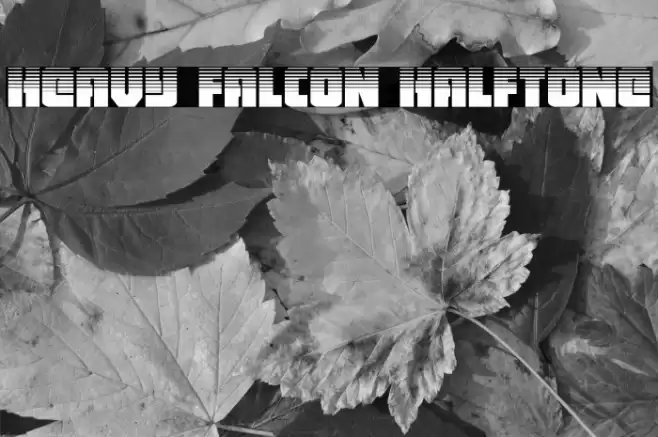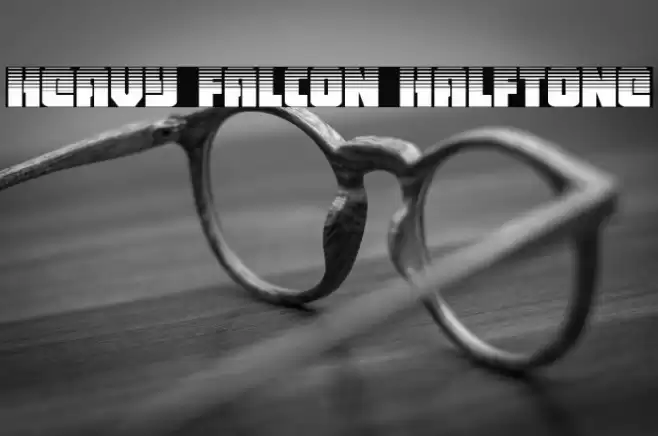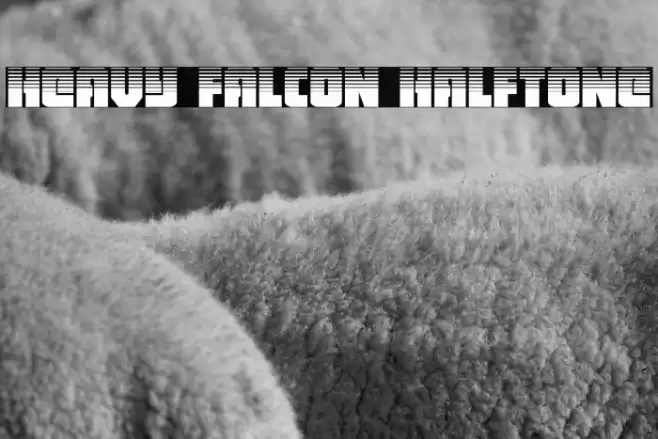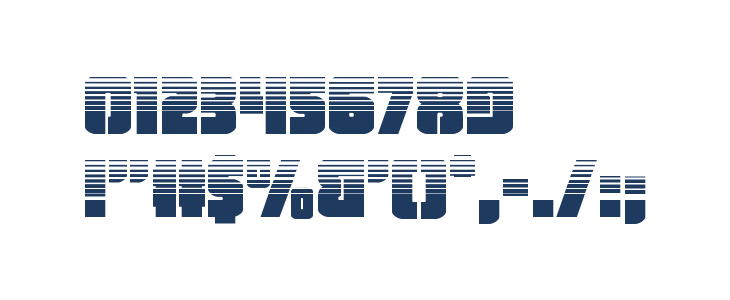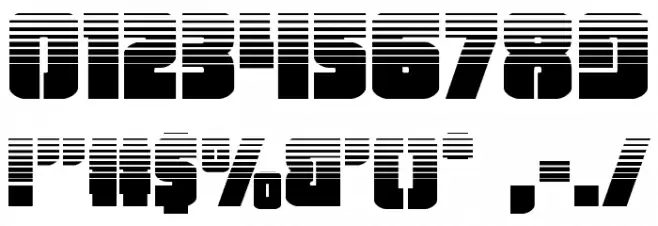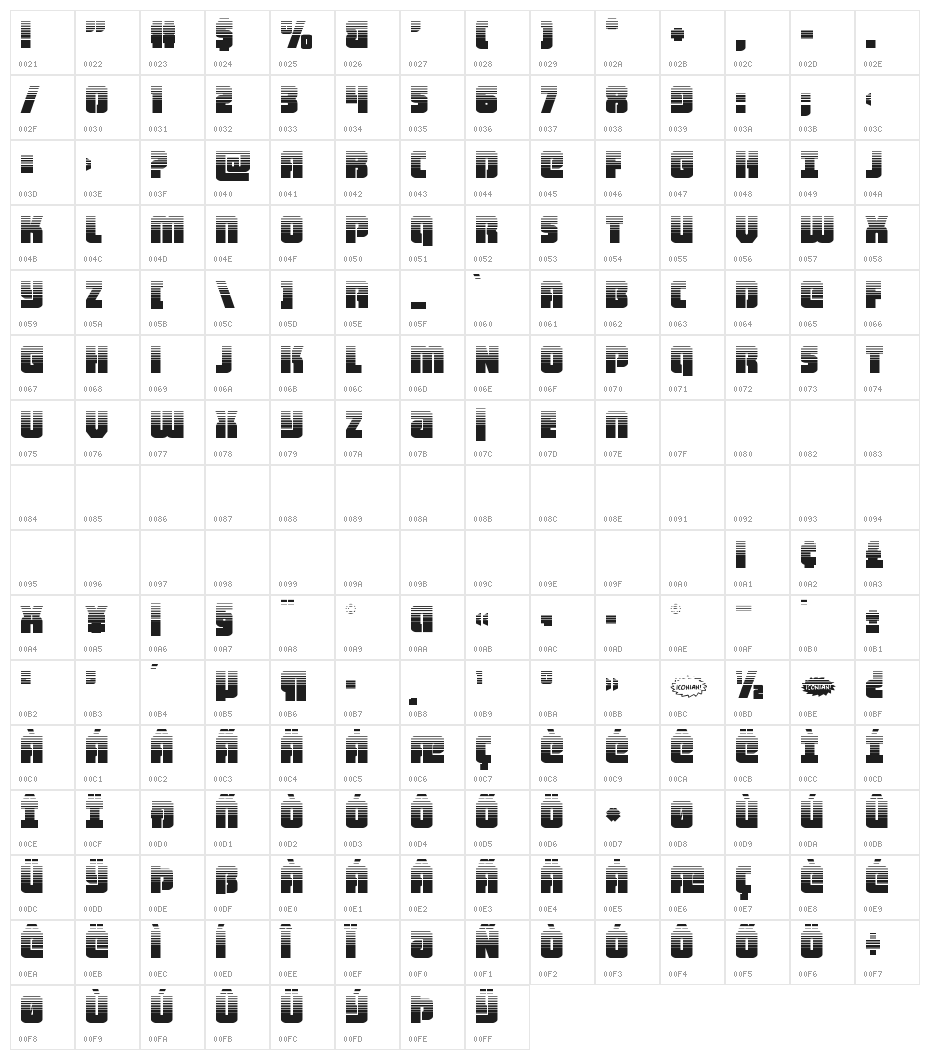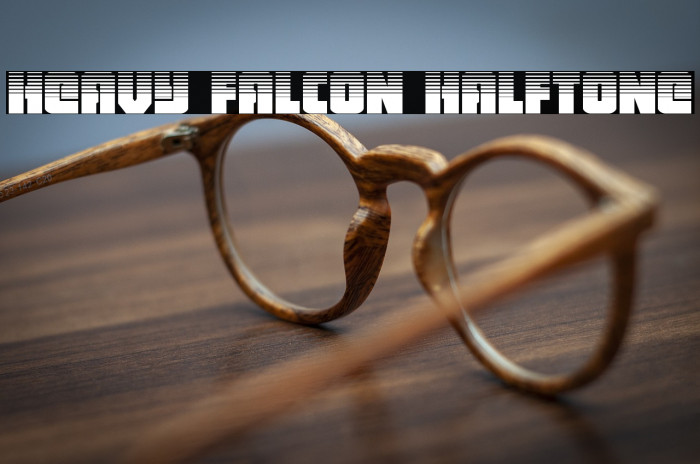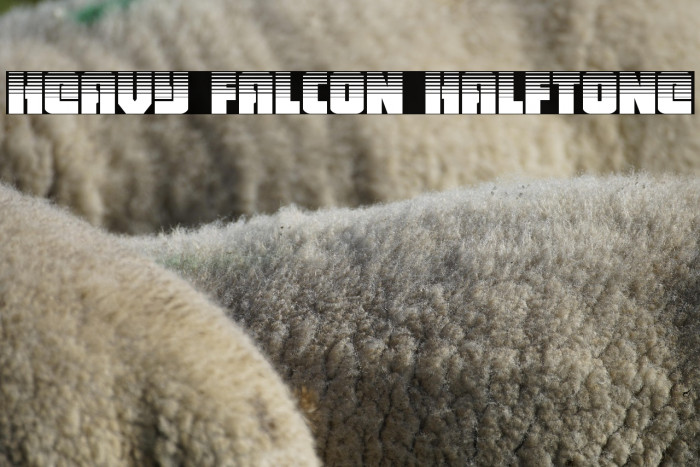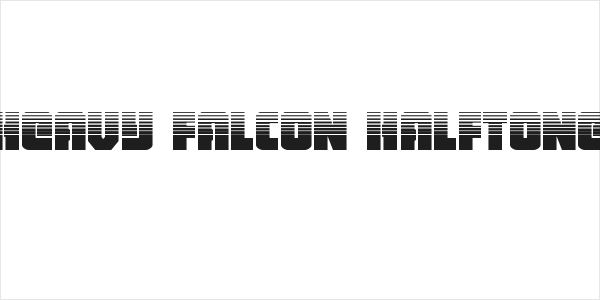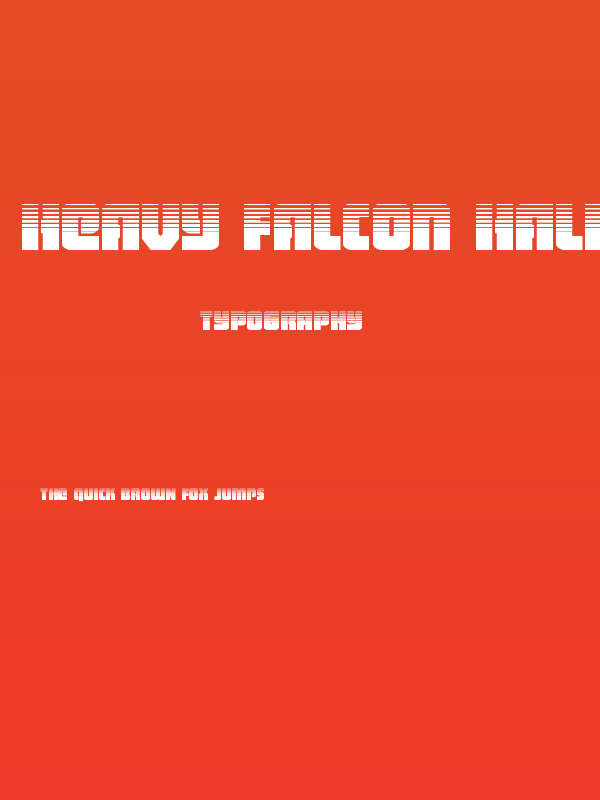
Heavy Falcon Halftone Font
Heavy Falcon Halftone Description
This font features a bold, geometric design with a halftone effect that creates a sense of depth and texture. The characters are constructed with thick, block-like shapes, and the horizontal lines give a dynamic, layered appearance. The uppercase letters are particularly striking, with a strong presence that demands attention. The numerals and special characters maintain the same bold style, ensuring consistency across all elements. This font is ideal for projects that require a modern and impactful look, such as posters, headlines, and branding materials.
A bold, geometric font with a halftone effect, perfect for modern and impactful designs from Uncategorized fonts.
- Proposed Projects: Ideal for posters, headlines, branding, and any project needing a strong visual impact.